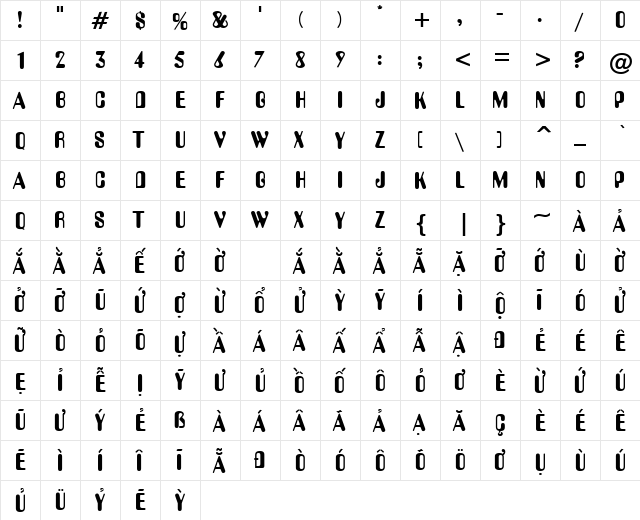
VPS Vinh Long Hoa Normal Font Preview
VPS Vinh Long Hoa Normal
Design Context for VPS Vinh Long Hoa Typeface
VPS Vinh Long Hoa is a composed and adaptable typeface that performs quietly and consistently across a wide range of design contexts.